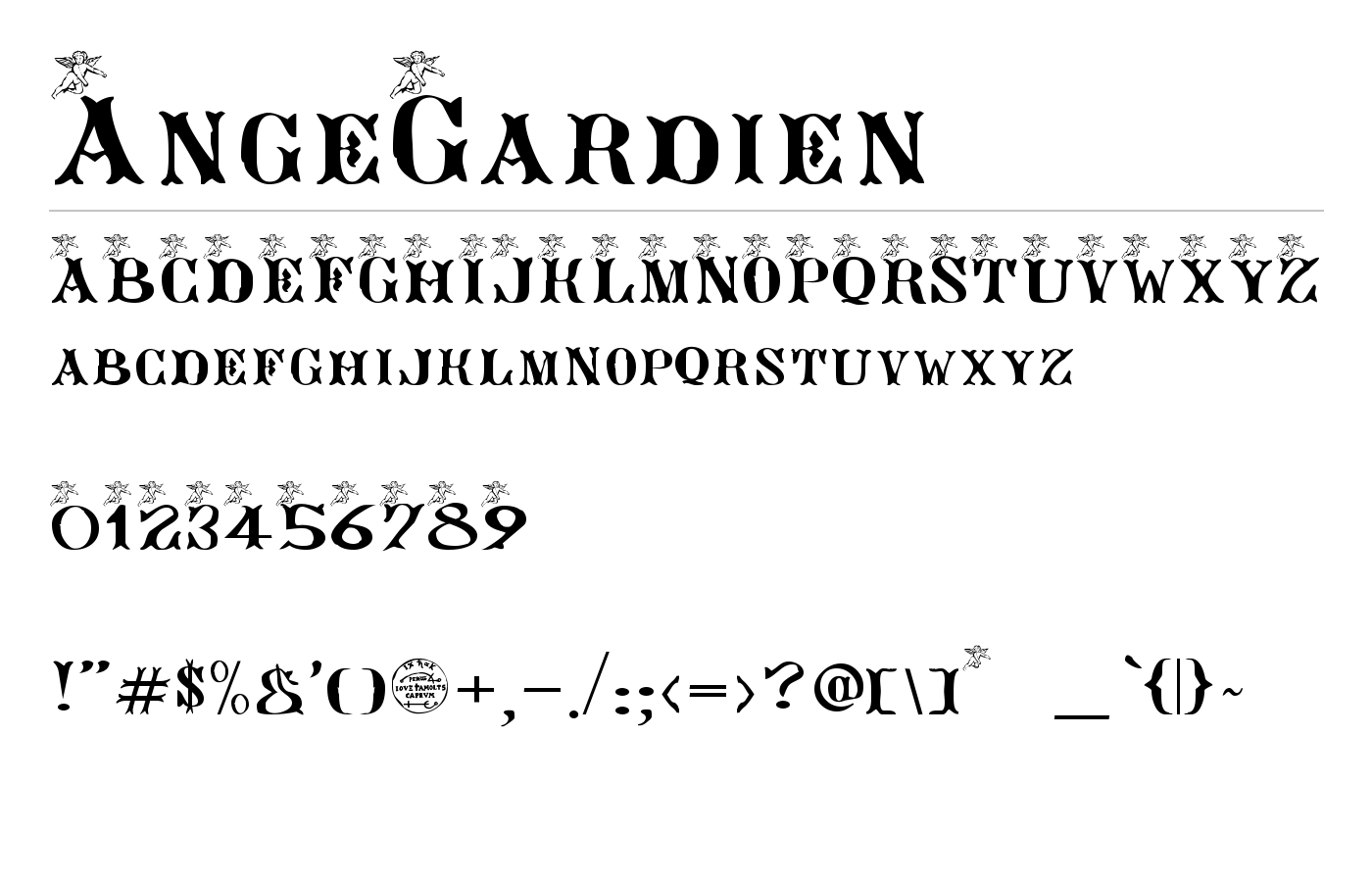
AngeGardien is a decorative serif typeface with a dramatic, gothic flair that blends vintage charm with bold, intricate letterforms. Its high contrast strokes, sharp serifs, and stylized details give it a strong, expressive personality perfect for striking headlines, logos, or branding that seeks a mysterious, elegant, or old-world feel. This font works best in display settings where its unique character can stand out and capture attention.
AngeGardien Font
About AngeGardien Font